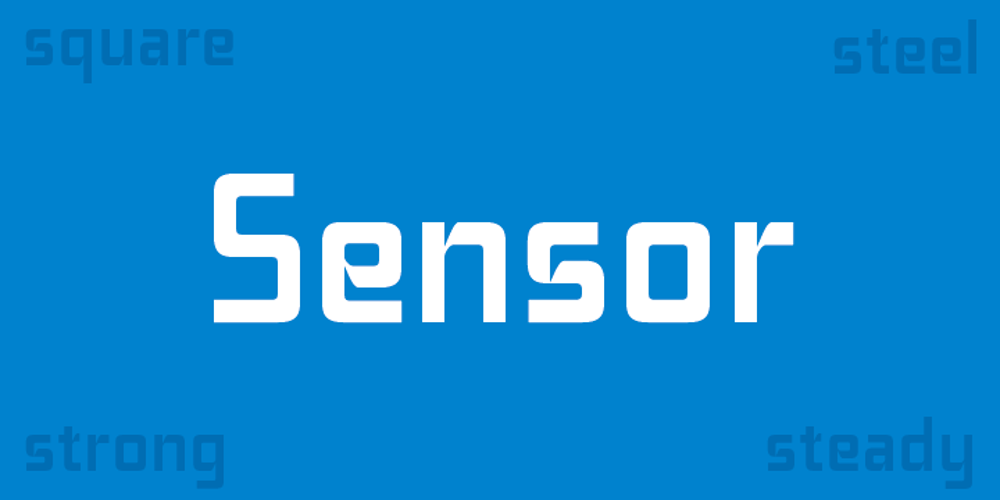
Sensor Font Family was designed by Dusan Jelesijevic and published by Tour De Force. Sensor contains 1 styles and family package options. Square “robocap” typeface containing some little bit of experimental letters such as “t” or “f”. Designed by Dusan Jelesijevic who wanted to make a font that would look heavy as building construction printed on your shirts. Even if it looks strong and stable, it is surprisingly very readable at small sizes which make it perfect for titles, posters or logotypes.